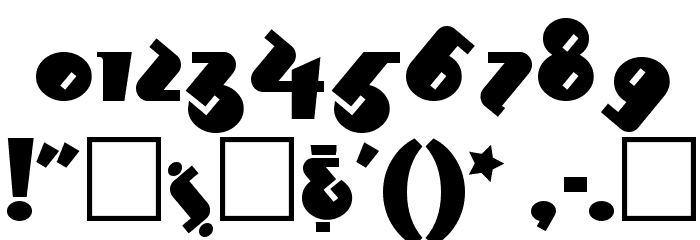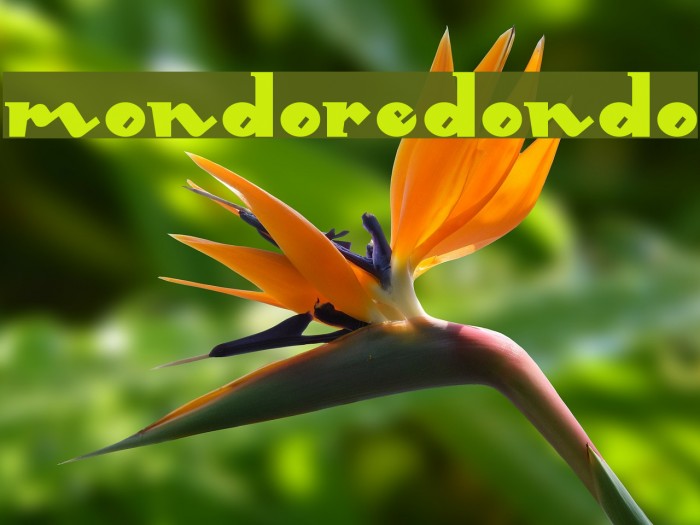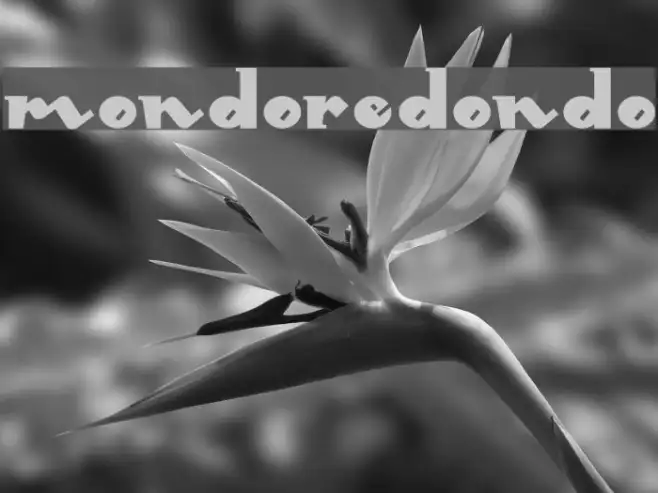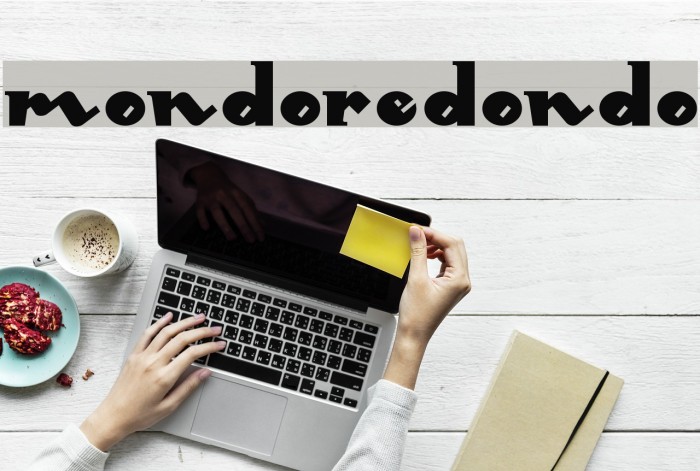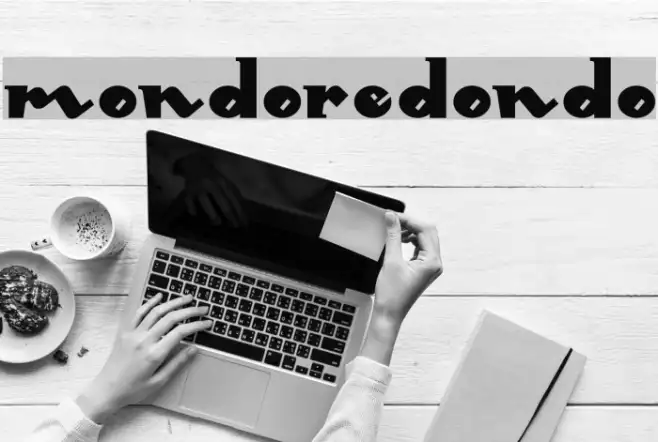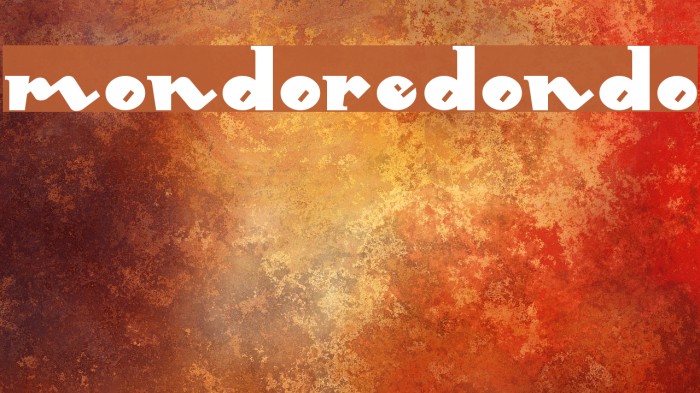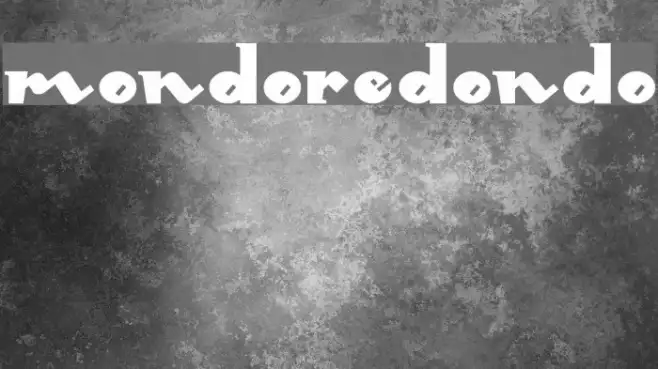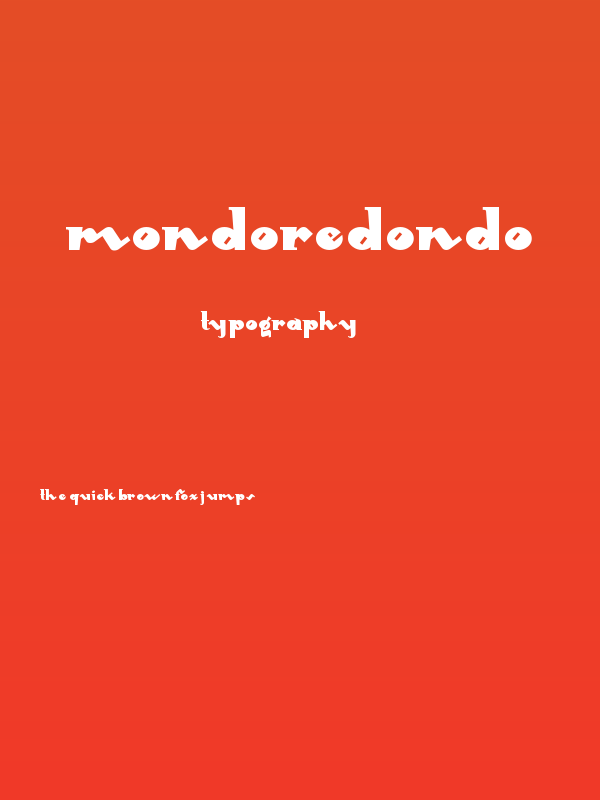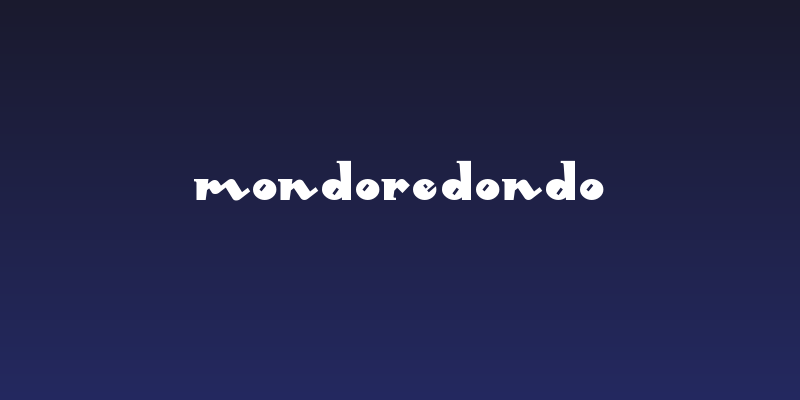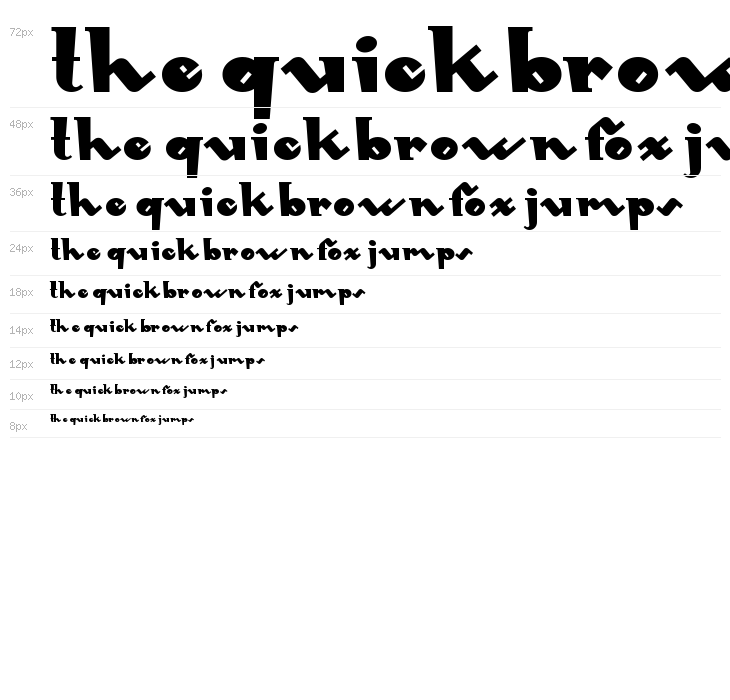
MondoRedondo Font
MondoRedondo Description
This font features a bold and playful design with a distinctive geometric flair. The characters are crafted with thick strokes and sharp angles, giving them a dynamic and energetic appearance. The uppercase and lowercase letters share a consistent style, with unique embellishments that add a whimsical touch. Numbers and special characters maintain the same boldness, ensuring uniformity across all text. The font's overall aesthetic is both modern and decorative, making it suitable for creative and eye-catching designs.
| Proposed Projects | Ideal for posters, branding, and creative projects that require a bold and playful aesthetic. |